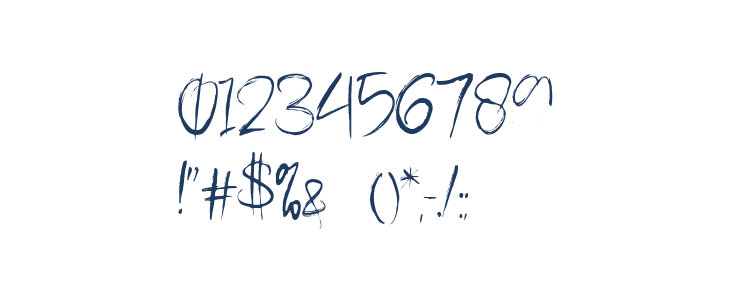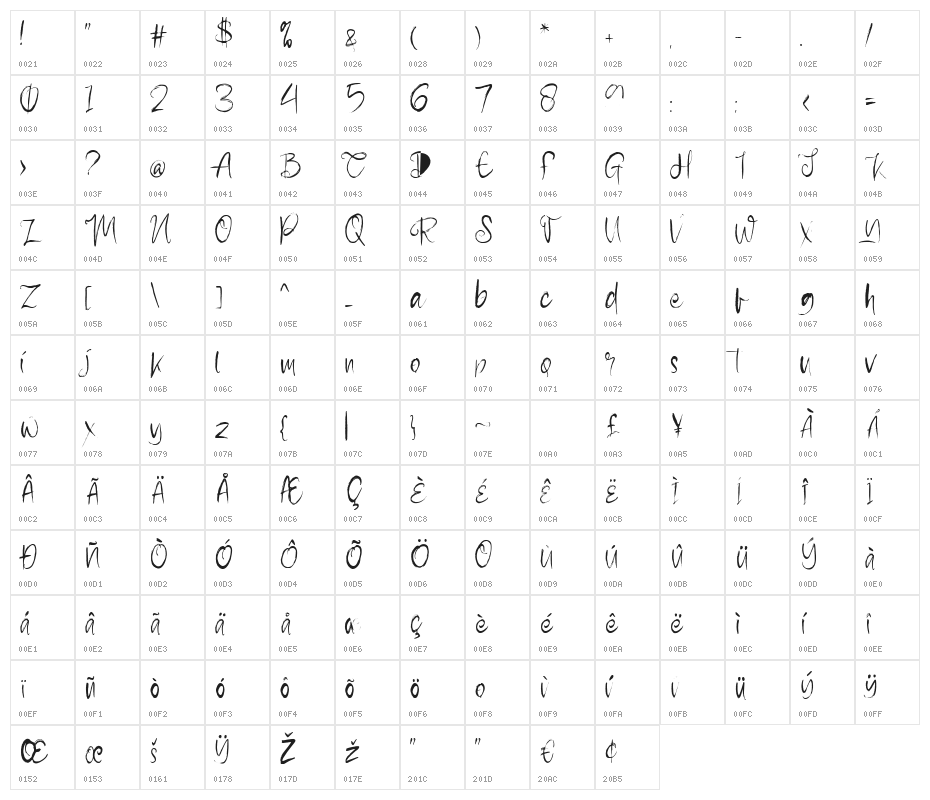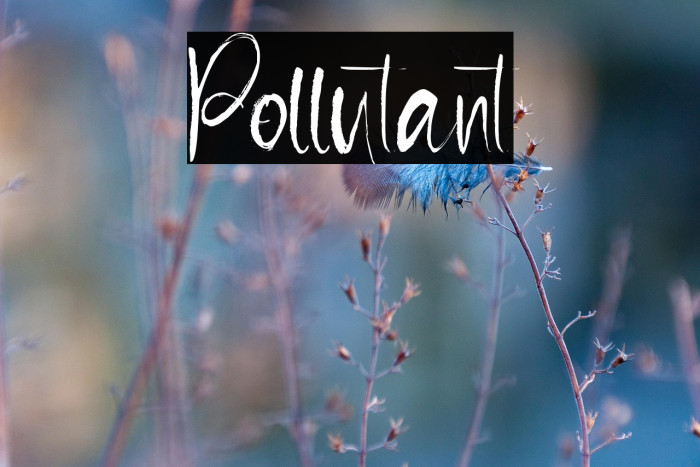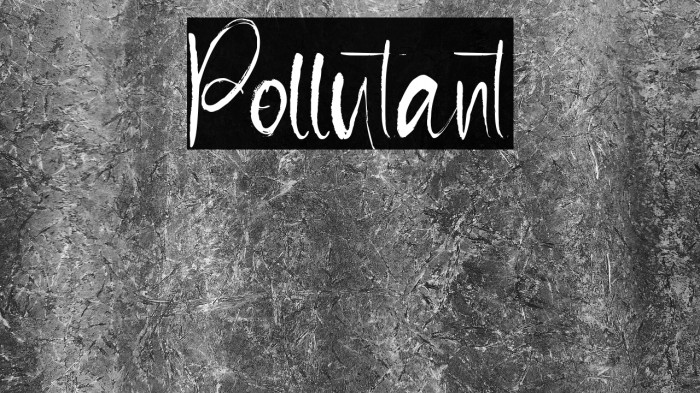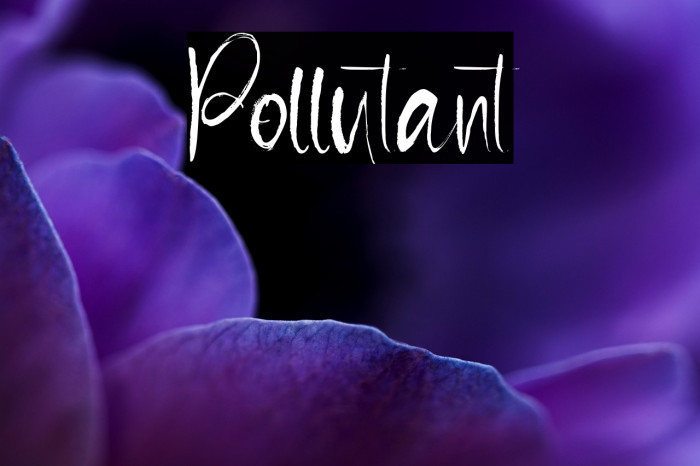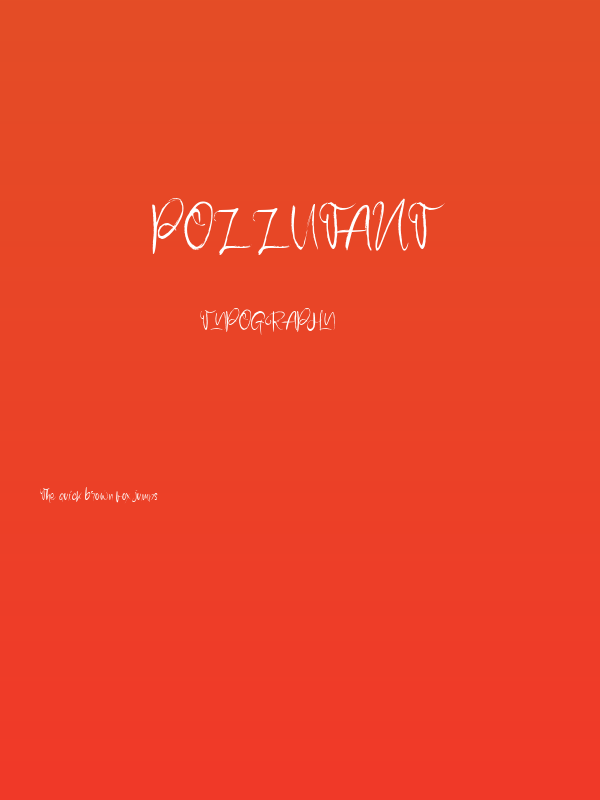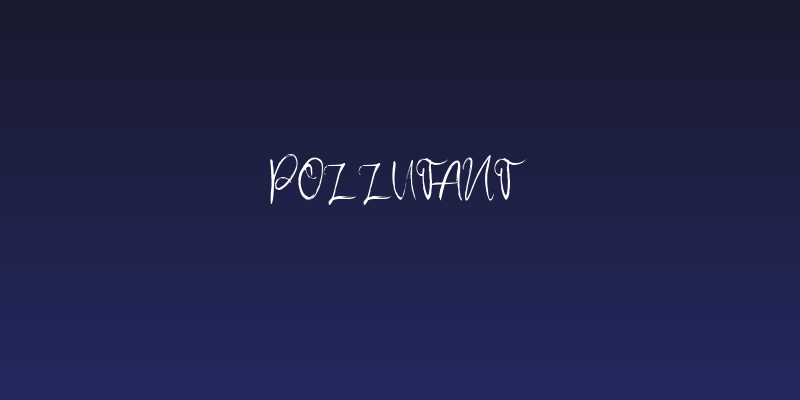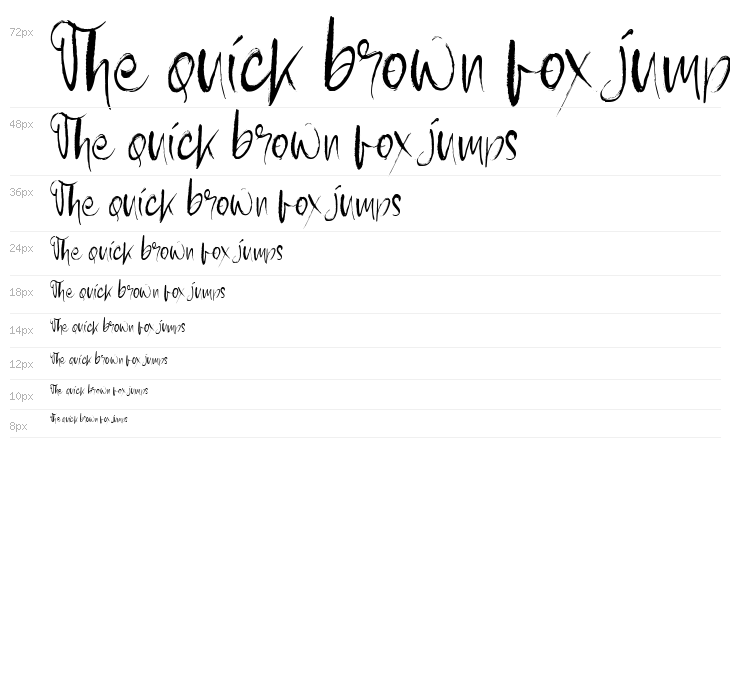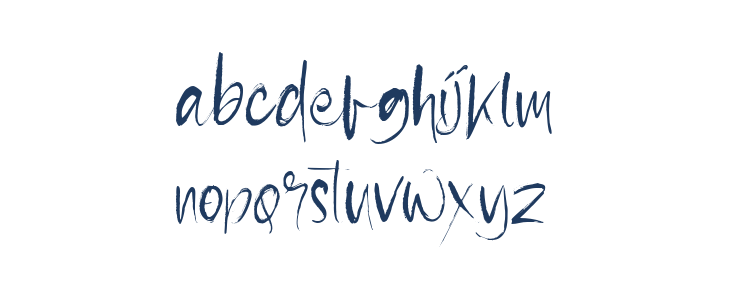
Pollutant Font
Pollutant Description
This font features an expressive, hand-drawn style with a dynamic and energetic appearance. The uppercase and lowercase letters exhibit a playful, brush-like texture, giving them a lively and artistic feel. The strokes vary in thickness, creating a sense of movement and spontaneity. The numbers and special characters maintain this artistic flair, ensuring consistency across the entire character set. This font's unique style is both eye-catching and versatile, making it suitable for creative projects that require a personal touch.
| Use Case | Logos, Headlines, Artistic projects |
| Proposed Projects | Ideal for artistic projects, branding, posters, and invitations that require a personal and creative touch. |